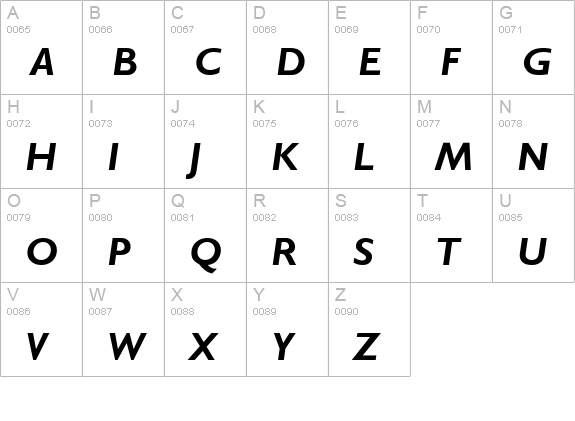
Stimmell-BoldItalic Font Details
The Stimmell-BoldItalic font exudes a sense of bold elegance and sophistication, making it a perfect choice for projects that require a touch of drama and flair. Its distinctive italicized design adds a dynamic twist to traditional typography, creating a visually striking look that commands attention. What sets Stimmell-BoldItalic apart is not only its stunning appearance but also the fact that it is available to download for free at FontsMarket.com. This means that you can elevate your designs without breaking the bank, making it an ideal option for budget-conscious creatives looking to add a touch of luxury to their projects. Whether you are working on a branding project, a website design, or any other creative endeavor, Stimmell-BoldItalic offers a versatile and eye-catching solution that is sure to make a lasting impression. Download this exquisite font today and unleash its bold beauty in your next design masterpiece.